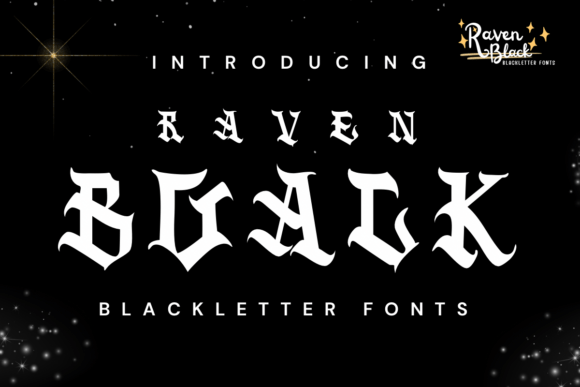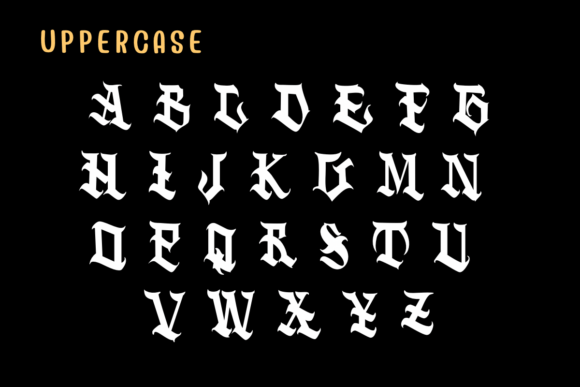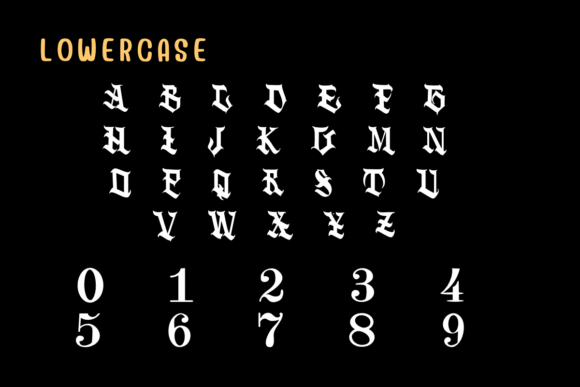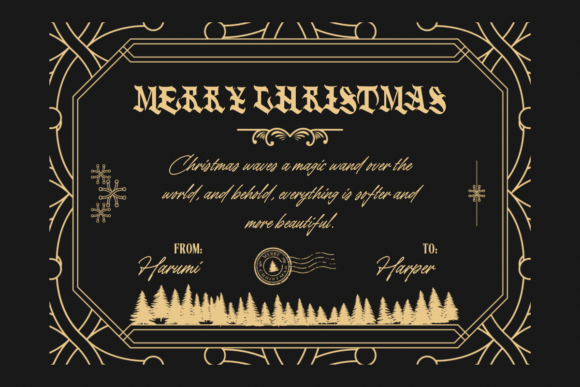
Raven Black Font: Bold Blackletter for Tattoo & Logo Design
About the Raven Black Font
Meet Raven Black Font, a stunning font that brings a touch of elegance and professionalism to any design. Raven Black is a royal-themed tattoo font with a charming and classic carved shape. Modern and luxurious, this blackletter font will impress and captivate any audience. Add it confidently to your creative projects and you will love the results!
Raven Black’s strong vertical strokes and dramatic flourishes make it ideal for headlines, logos, and short impactful phrases in branding projects or posters. It excels in conveying a sense of luxury and authority. However, its intricate details make it less suitable for body text or UI elements where readability is paramount. Avoid using it for large blocks of text.
Its bold, slightly rebellious personality pairs well with clean sans-serif fonts like Montserrat or Open Sans for a modern contrast, or a classic serif like Garamond for a more traditional feel. A delicate script font could add a touch of elegance, provided it’s used sparingly to avoid overwhelming the design.
For maximum impact, consider using Raven Black as a statement piece, letting its inherent strength speak for itself. Overuse might detract from its inherent power and sophistication.
Raven Black Font Usage Examples
Raven Black Font Example